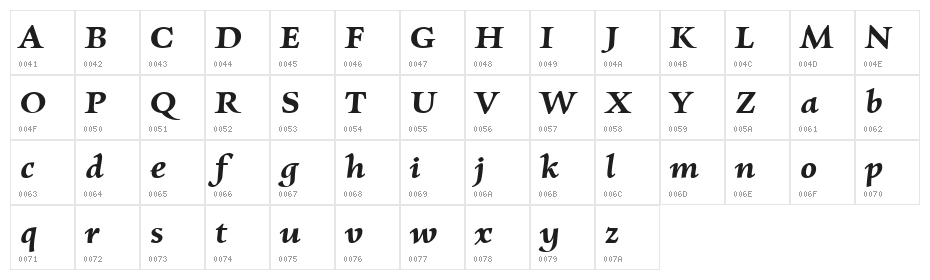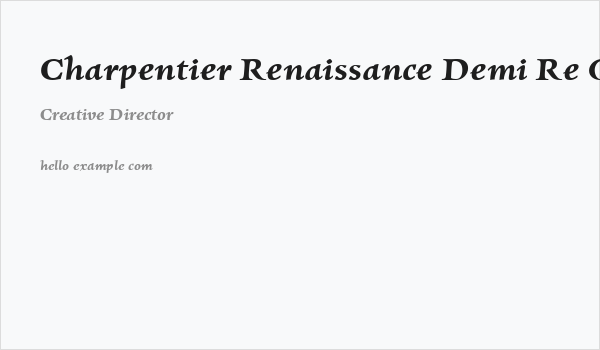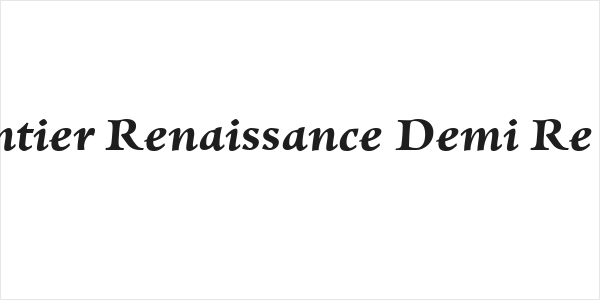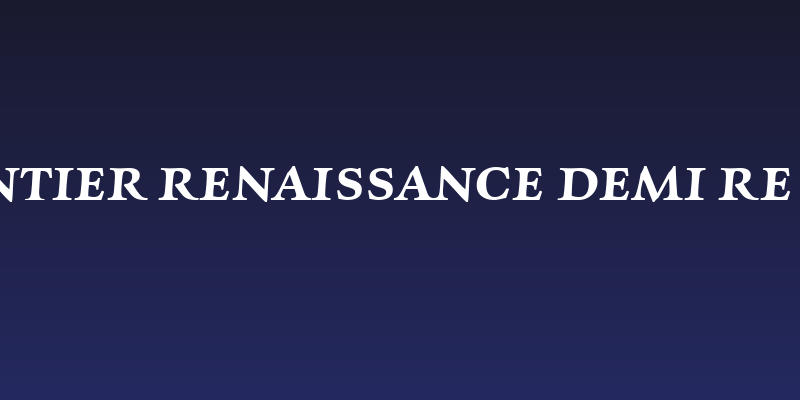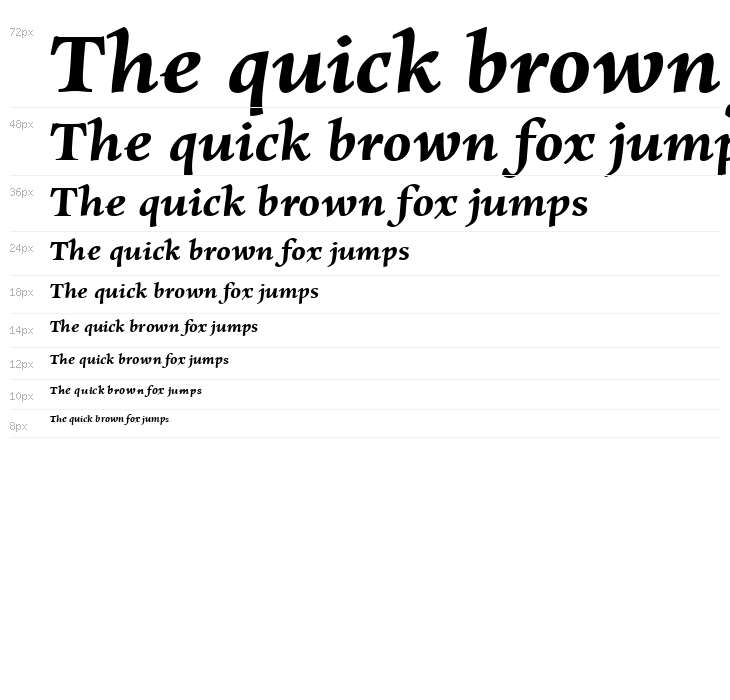
Charpentier Renaissance Demi Re Oblique Font
Charpentier Renaissance Demi Re Oblique Description
This font exudes a classic and elegant style, reminiscent of Renaissance typography with a modern twist. The characters are slightly oblique, adding a dynamic and sophisticated flair. The serifs are pronounced yet refined, providing a sense of tradition and stability. The uppercase letters are bold and commanding, while the lowercase letters maintain a graceful flow. The overall design is well-balanced, making it suitable for both formal and creative applications. The font's unique character shapes and moderate contrast in stroke thickness enhance its readability and aesthetic appeal.
| Proposed Projects | Ideal for book covers, invitations, branding, and editorial design. |